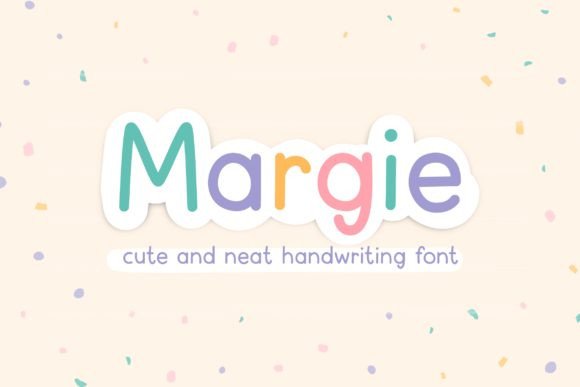
Welcome to the world of Margie Font, a charming and delightful display font that will add a touch of warmth and playfulness to your creative projects. Crafted with meticulous care by the talented Jyllyco, Margie embodies the essence of friendliness and simplicity, making it the perfect choice for expressing heartfelt sentiments and creating captivating designs.
Immerse yourself in the beauty of Margie's meticulously crafted characters, each brimming with personality and charm. With its clean lines and playful curves, Margie possesses an irresistible charm that will captivate your audience and leave a lasting impression. Whether you're crafting heartfelt letters, designing enchanting logos, or creating eye-catching branding materials, Margie Font is your perfect companion.
Experience the versatility of Margie Font as it effortlessly complements a wide range of projects. From blog posts and digital planners to invitations and greeting cards, Margie's adaptability knows no bounds. Its versatility extends to digital bullet journals, where its playful spirit adds a touch of whimsy to your daily notes and reflections. Unleash your creativity and let Margie Font transform your words into works of art.
Margie Font is more than just a collection of characters; it's an expression of your emotions and a reflection of your unique style. With its comprehensive character set, including uppercase, lowercase, numbers, and punctuation, Margie Font provides you with the tools to convey your message with clarity and impact. Let your words dance across the page, carried by the charm and grace of Margie Font.
Discover the endless possibilities of Margie Font and embark on a creative journey that will leave you inspired and delighted. Its user-friendly nature makes it accessible to designers of all levels, inviting you to explore your creativity and bring your ideas to life. Join the growing community of Margie Font enthusiasts and let your imagination soar.